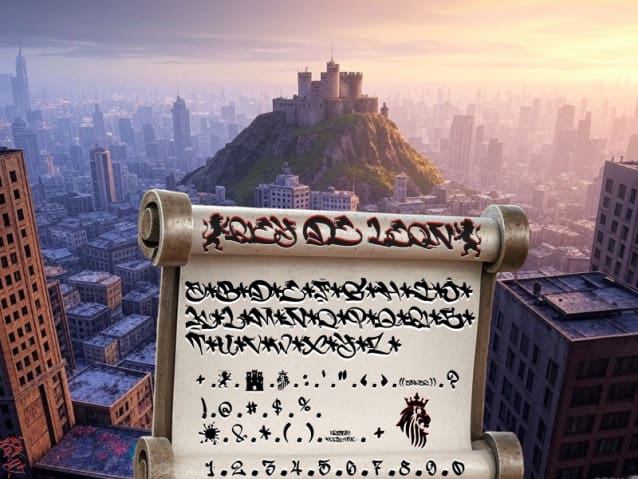
Rey De Leon Font
Rey De Leon Font – Another Graffiti Font by the Urban Hook-Upz Foundry! Designing Graffiti Fonts can be more difficult then normal font creation; you must skew your lettering, not following the common patterns of standard spaced fonts. this requires advanced spacial design techniques.
Fresh for the New Year , this Graffiti Font created by, Artist Anwar Ibrahim, will Surely be a top downloaded font for 2025 and beyond.
The artist Anwar Ibrahim has taken extra time reviewing the overlapping patterns of various font letters and words in repetitive trial while typing, to get the best possible display, by creating an effect close to true hand-styles.